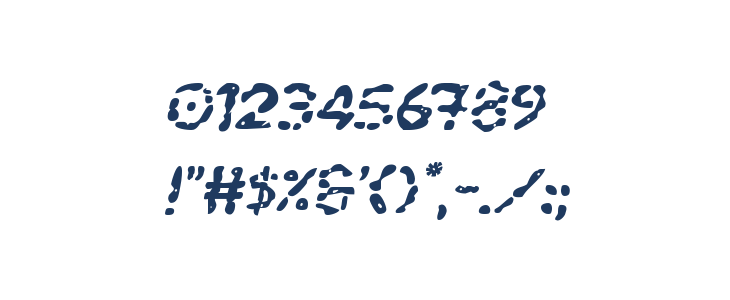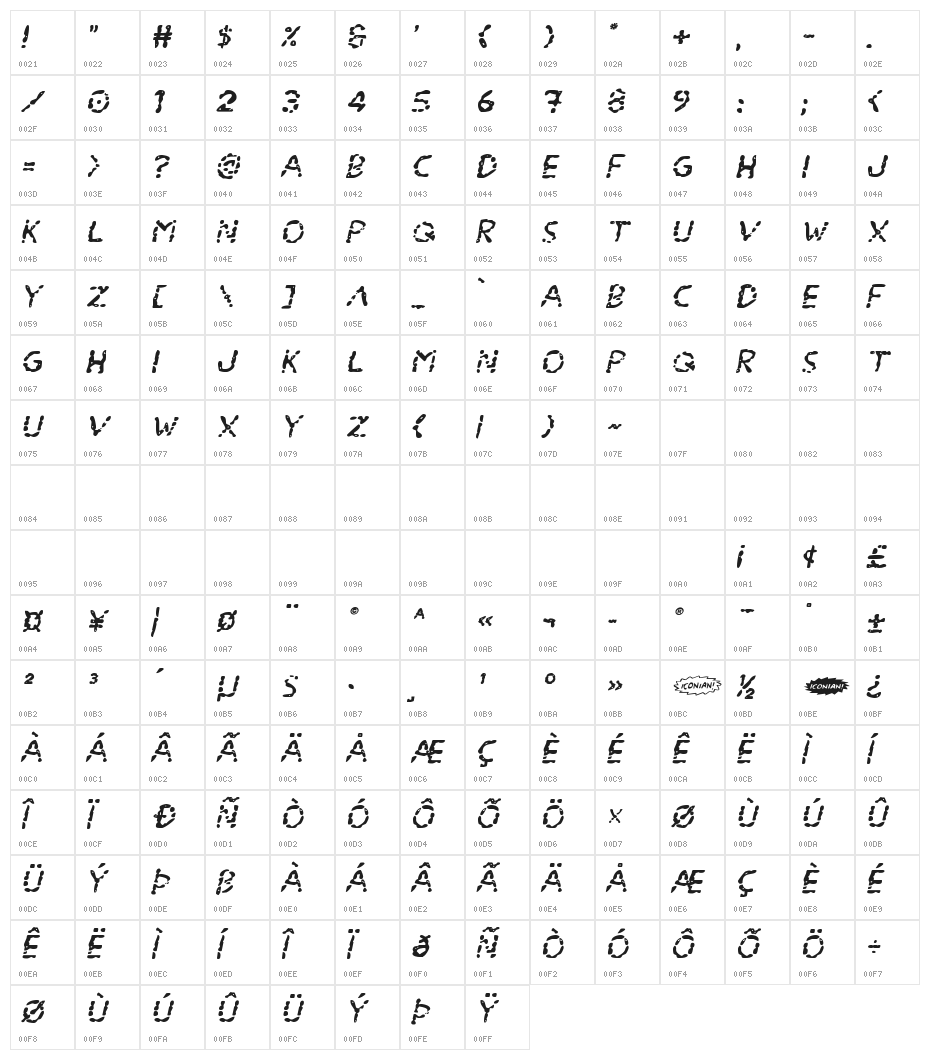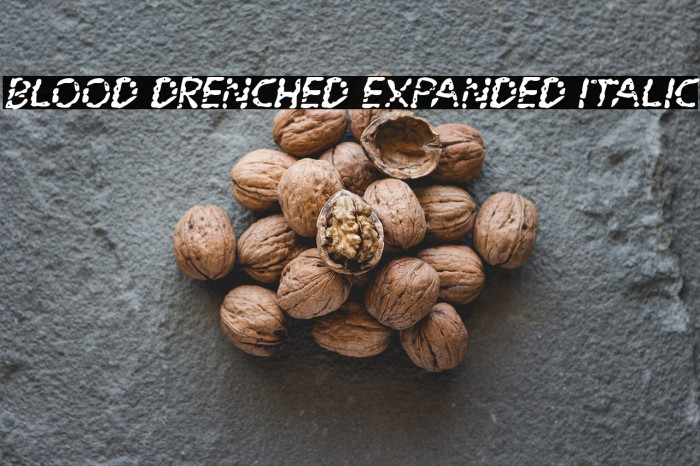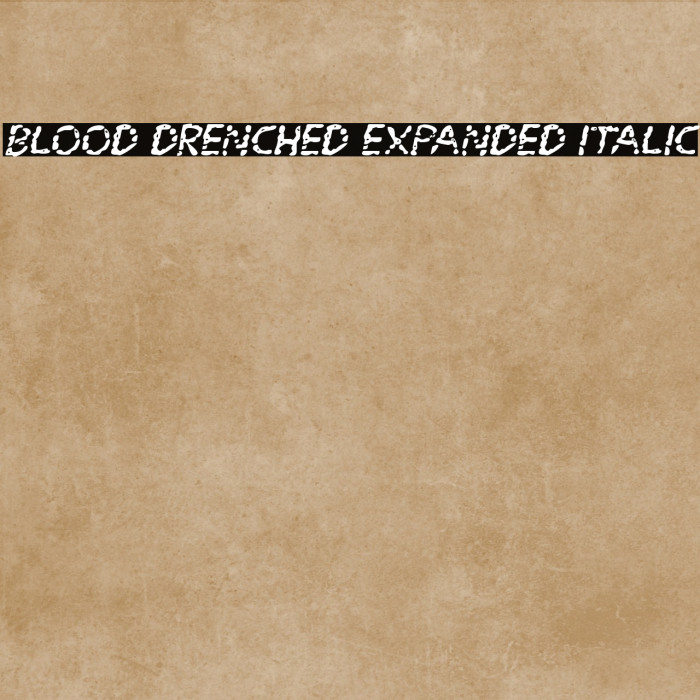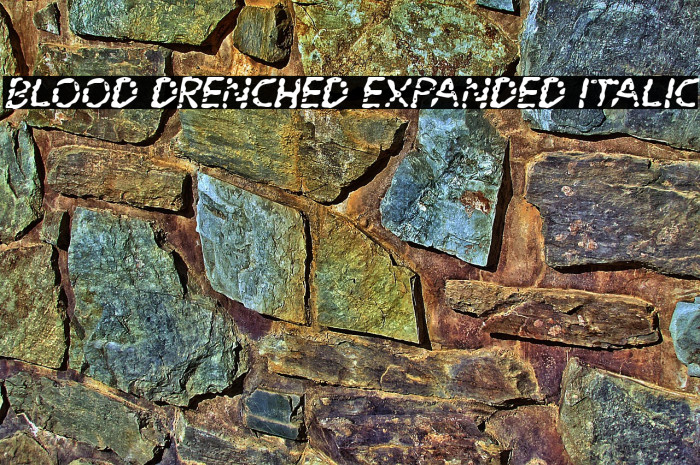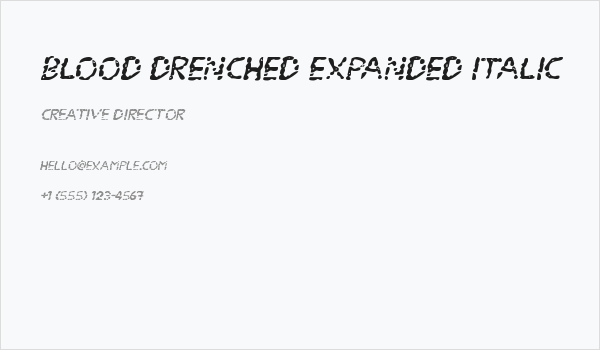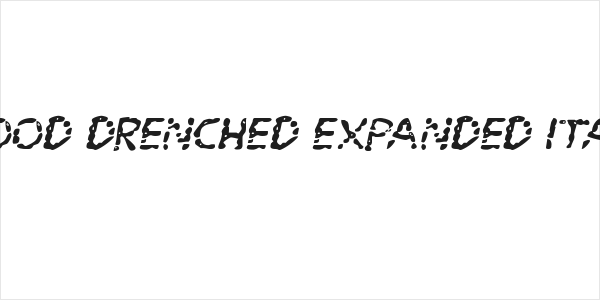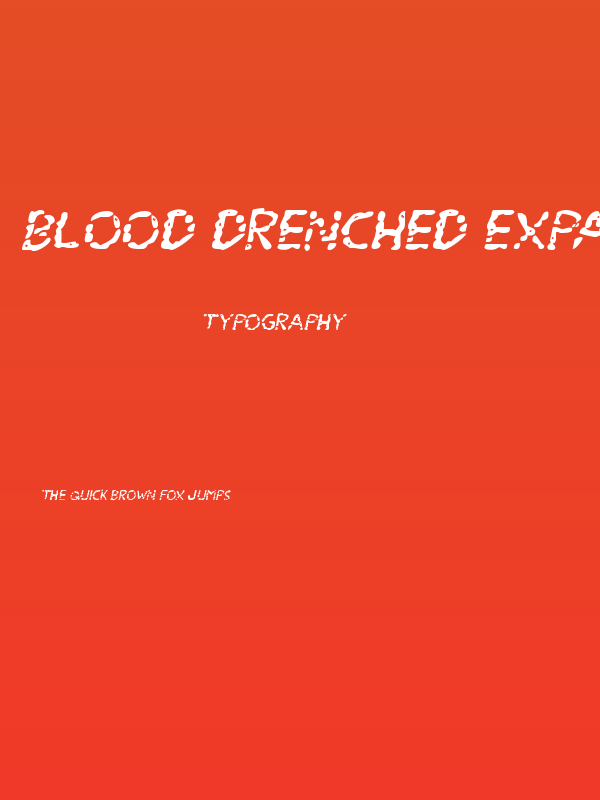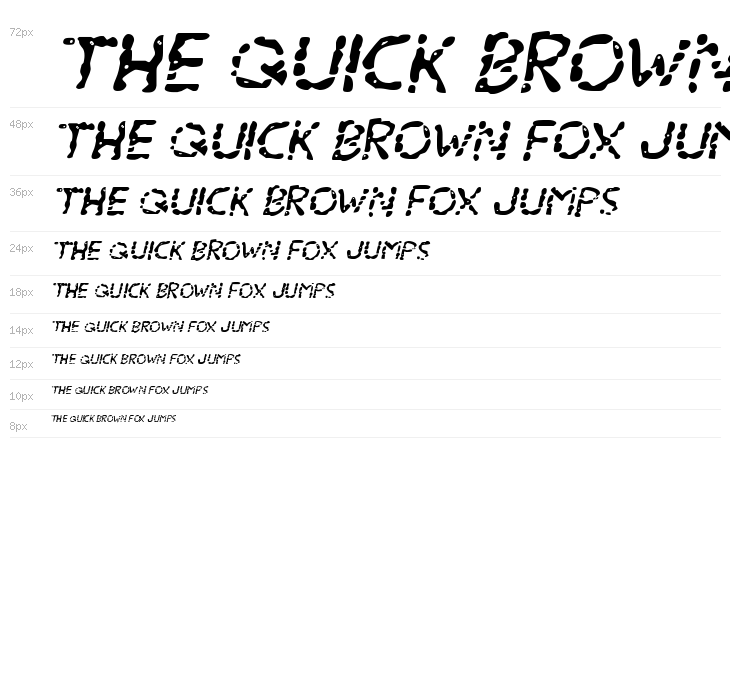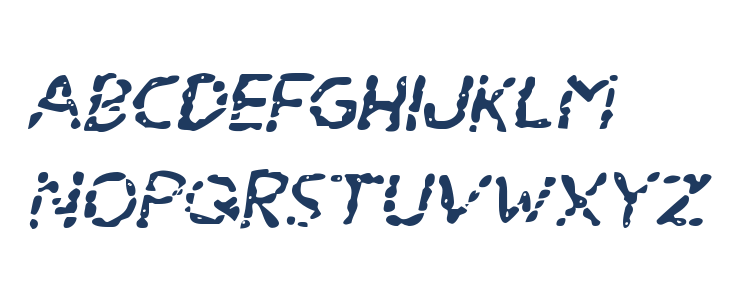
Blood Drenched Expanded Italic Font
Blood Drenched Expanded Italic Description
This font features a unique and dramatic design, characterized by its bold and irregular shapes that resemble splatters or drips. The letters are expanded and italicized, giving them a dynamic and fluid appearance. The overall style is highly decorative, making it suitable for eye-catching designs. The font includes both uppercase and lowercase letters, numbers, and a variety of special characters. Its distinctive appearance makes it ideal for projects that require a strong visual impact.
| Proposed Projects | Ideal for horror-themed posters, Halloween invitations, edgy branding, and any design needing a dramatic flair. |